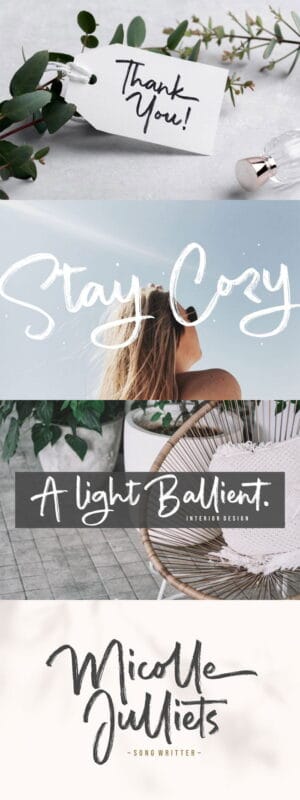
Glathope Is A Handwritten Brush Font
Glathope Handwritten Brush Font
Proudly Presenting, Glathopes is A Handwritten Brush Font Glathopes is perfect for any titles, logo, product packaging, branding project, megazine, social media, wedding, or just used to express words above the background. You Can Also Download Hottemp Brush Font Duo.
Glathope Handwritten Brush Font